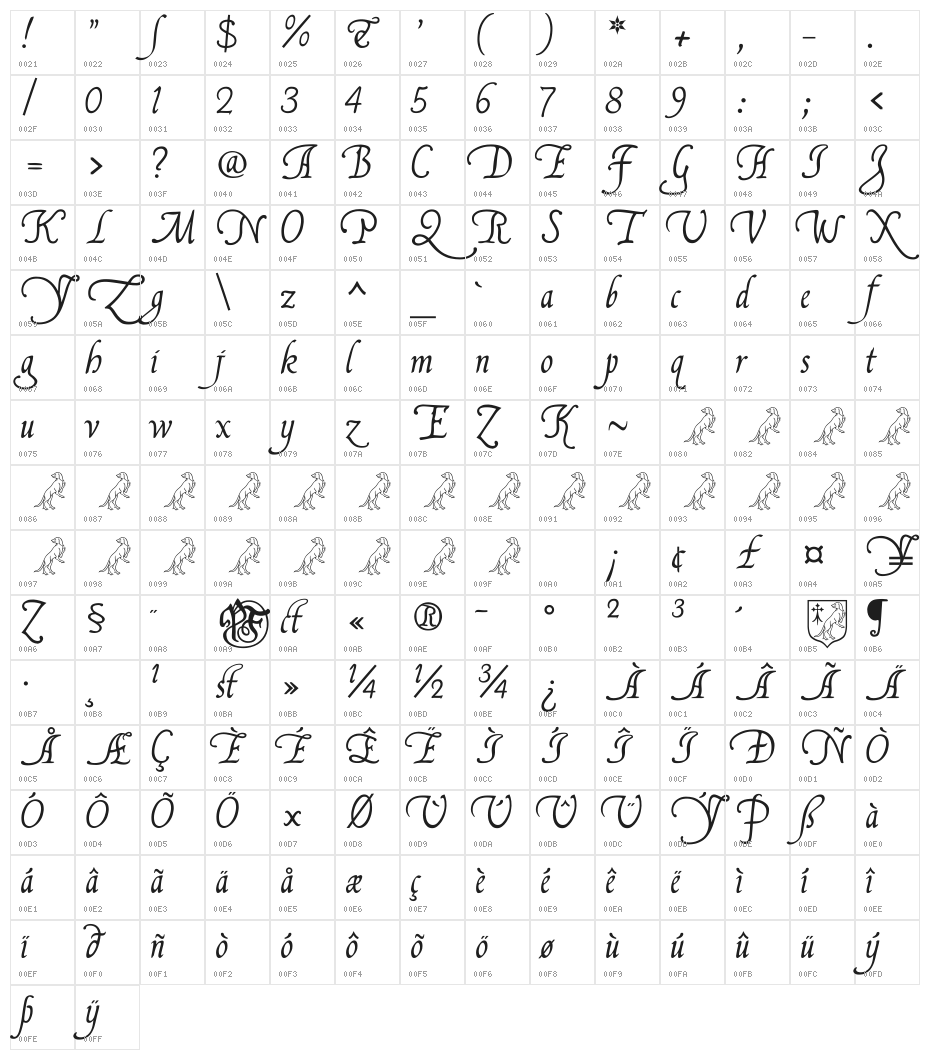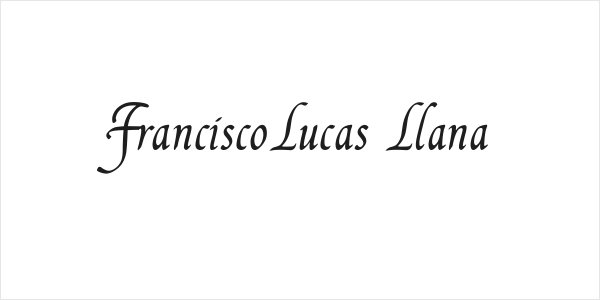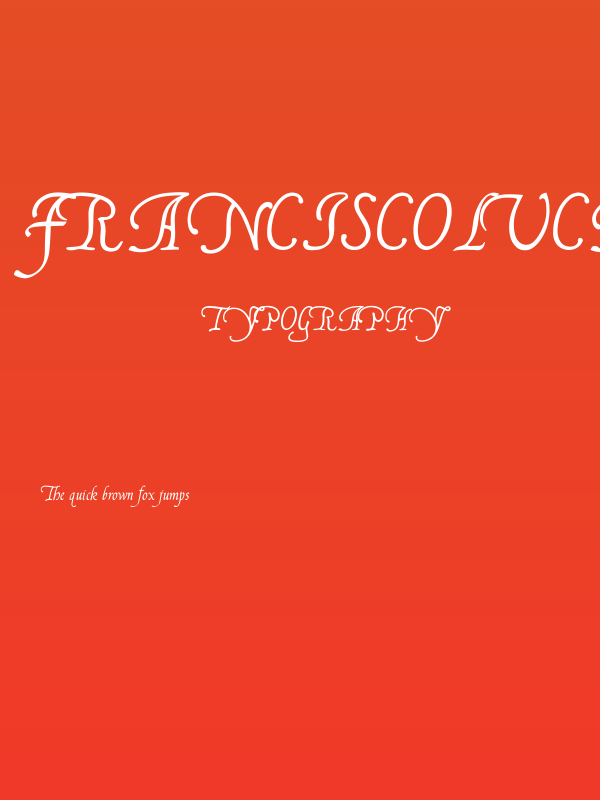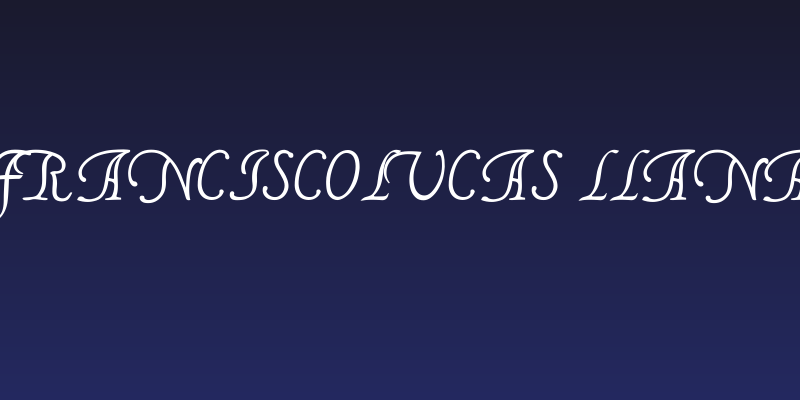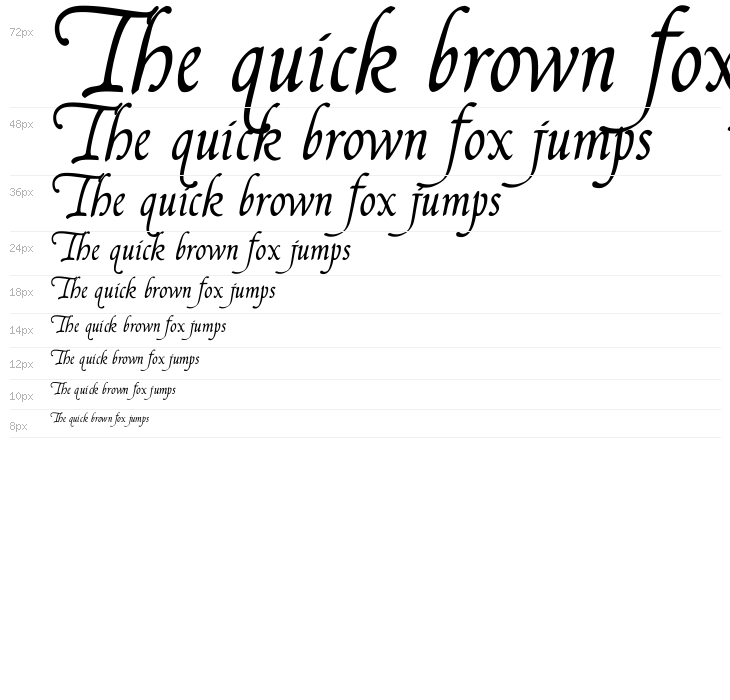
FranciscoLucas Llana Font
FranciscoLucas Llana Description
This font showcases a classic calligraphic style with elegant, flowing lines and a sense of historical sophistication. The uppercase letters are characterized by their ornate loops and flourishes, reminiscent of traditional penmanship. The lowercase letters maintain a consistent flow, with gentle curves and a slightly slanted orientation, adding to the overall graceful appearance. The numerals are clear and legible, with a subtle touch of the same decorative flair found in the letters. Special characters are thoughtfully designed to complement the overall aesthetic, making this font suitable for projects that require a touch of elegance and tradition.
| Use Case | Headlines, Invitations, Certificates |
| Proposed Projects | Ideal for wedding invitations, formal certificates, historical documents, and elegant branding. |